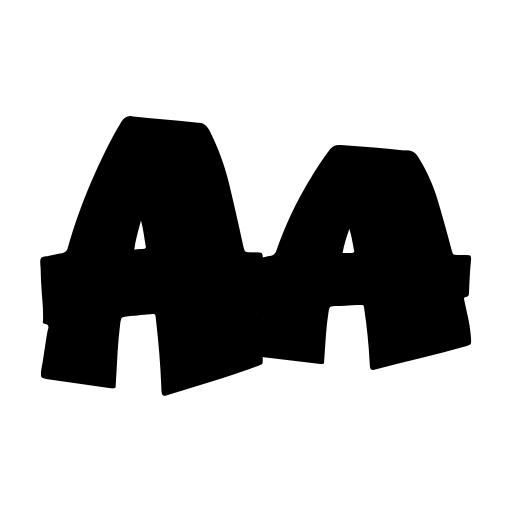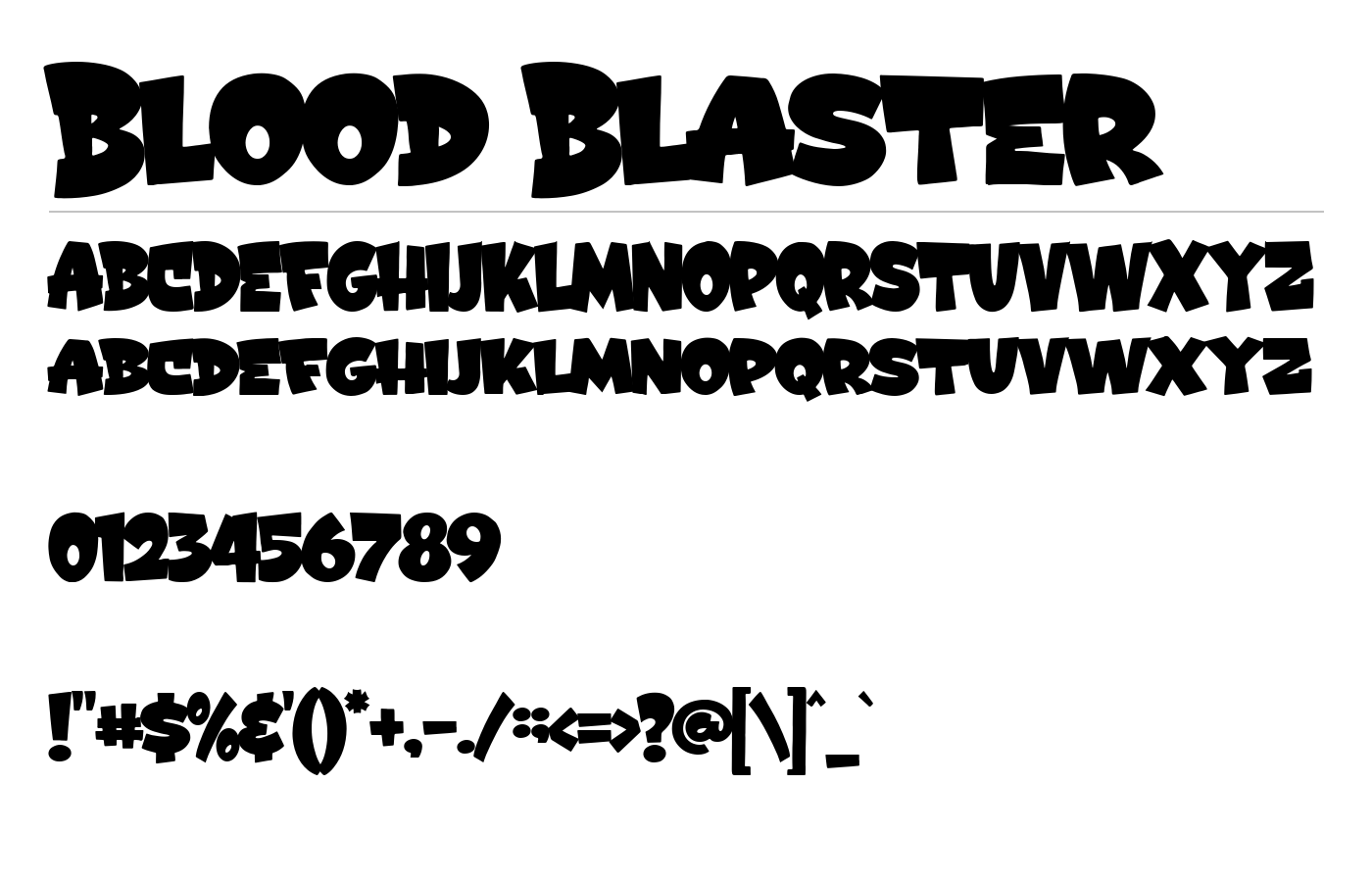
Blood Blaster is a bold and playful display font with thick, chunky letterforms that create a fun and energetic vibe. Its irregular shapes and slightly uneven strokes give it a hand-drawn, comic-like feel, making it perfect for eye-catching headlines, posters, and designs aimed at a youthful or lively audience. This font works well in creative projects where a strong, informal personality is desired.
Blood Blaster Font
About Blood Blaster Font
| Font family | Blood Blaster Font |